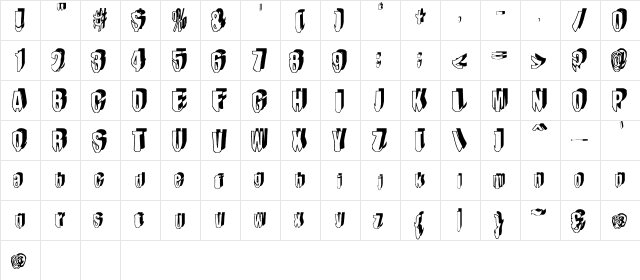
mashy DroopShadow Regular
Design Context for mashy DroopShadow Typeface
mashy DroopShadow is built around its visual character rather than neutral utility — its distinctive forms are designed to make an impression at display sizes.
Font Pairing: Pair with a clean neutral sans-serif for body copy to let mashy DroopShadow's character lead without overwhelming the composition.
Pro Tip: Treat mashy DroopShadow as the centrepiece of your typographic hierarchy. One strong heading set in a decorative face can carry an entire layout.